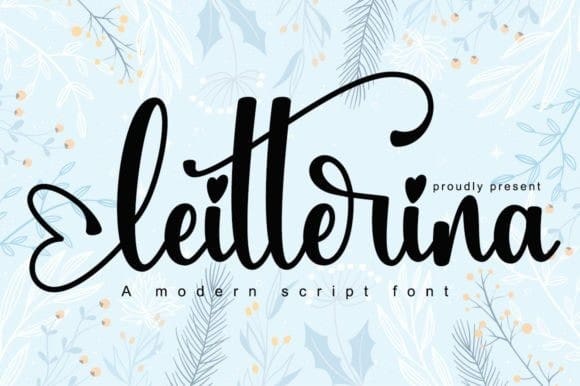
Leitterina Script Font
Leitterina Script Font is a lovely and delicate script font that will surprise you with its versatility. Add it confidently to your favorite creations, and let yourself be amazed by the outcome generated. This font is PUA encoded, which means you can access all of the glyphs and swashes with ease!